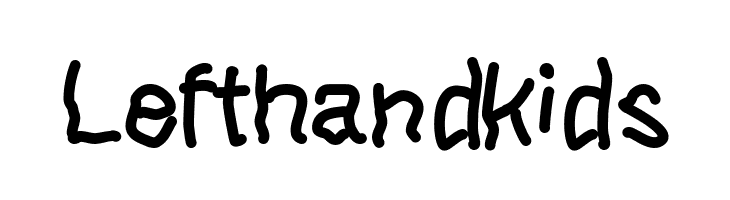
A bold, decorative font with unique cut-out patterns and an artistic flair.
A bold slab serif font with strong, block-like serifs and a cohesive design.
A bold, Gothic-style font with sharp, angular strokes and decorative details.
A rugged, textured font with an inline style and vintage appeal.
A bold, textured font with a rustic, handcrafted appearance.
A rugged, textured font with shadow effects and a vintage, handcrafted feel.
A bold, distressed font with a rugged, vintage style.
A modern dotted font with evenly spaced dots forming each character.
A playful, continuous script font with elegant curves and loops.
A bold, textured font with a vintage, handcrafted appearance.
A bold, distressed font with a vintage, rugged texture.
A playful, bold font with a bubble-like outline and rounded characters.
A playful, hand-drawn font with rounded edges and consistent spacing.
A bold, playful handwritten font with a casual and friendly style.
A bold, distressed font with a grunge, stamped appearance.
A bold, distressed font with a vintage, grunge aesthetic.
An ornate Blackletter font with intricate, bold letterforms and dramatic flourishes.
A playful, casual handwritten font with smooth, rounded edges.
A modern, elegant font with clean lines and balanced structure.
A modern, geometric outlined font with a clean, technical aesthetic.
A whimsical, fantasy-themed font with magical embellishments.